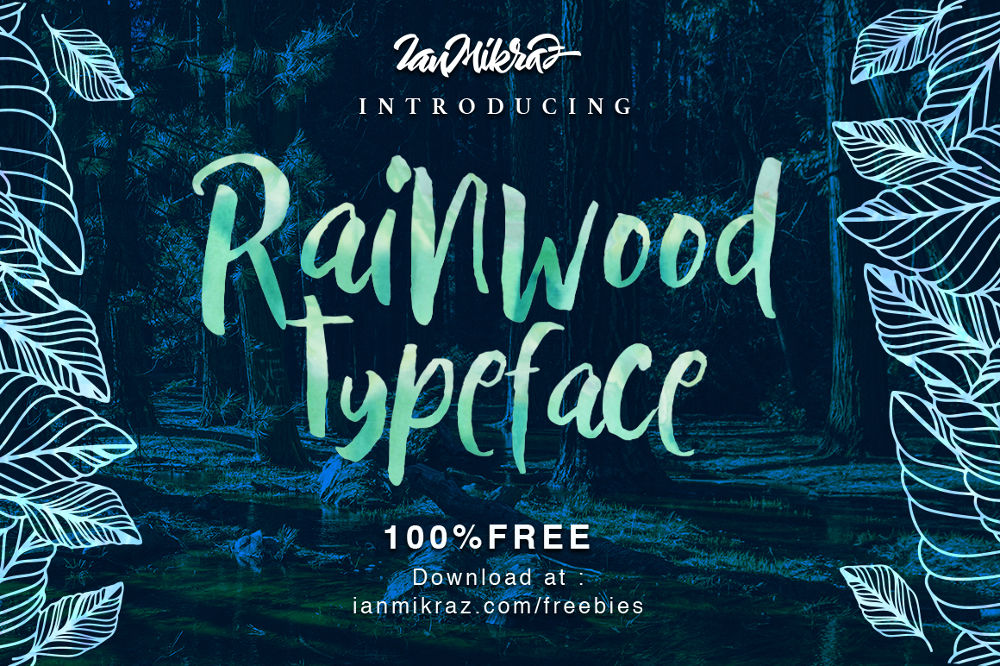
Rainwood Free Typeface
Rainwood Free Typeface is a new Handmade Painting Style Typeface Fonts collection from Ianmikraz studio, combines from hand style, brush and paint touch.
Rainwood Free Typeface features 232 glyphs and 52 alternate character contain with opentype features. 2 Stylistic Alternates, Standart Ligature and more. Enjoy!
Rainwood Free Typeface